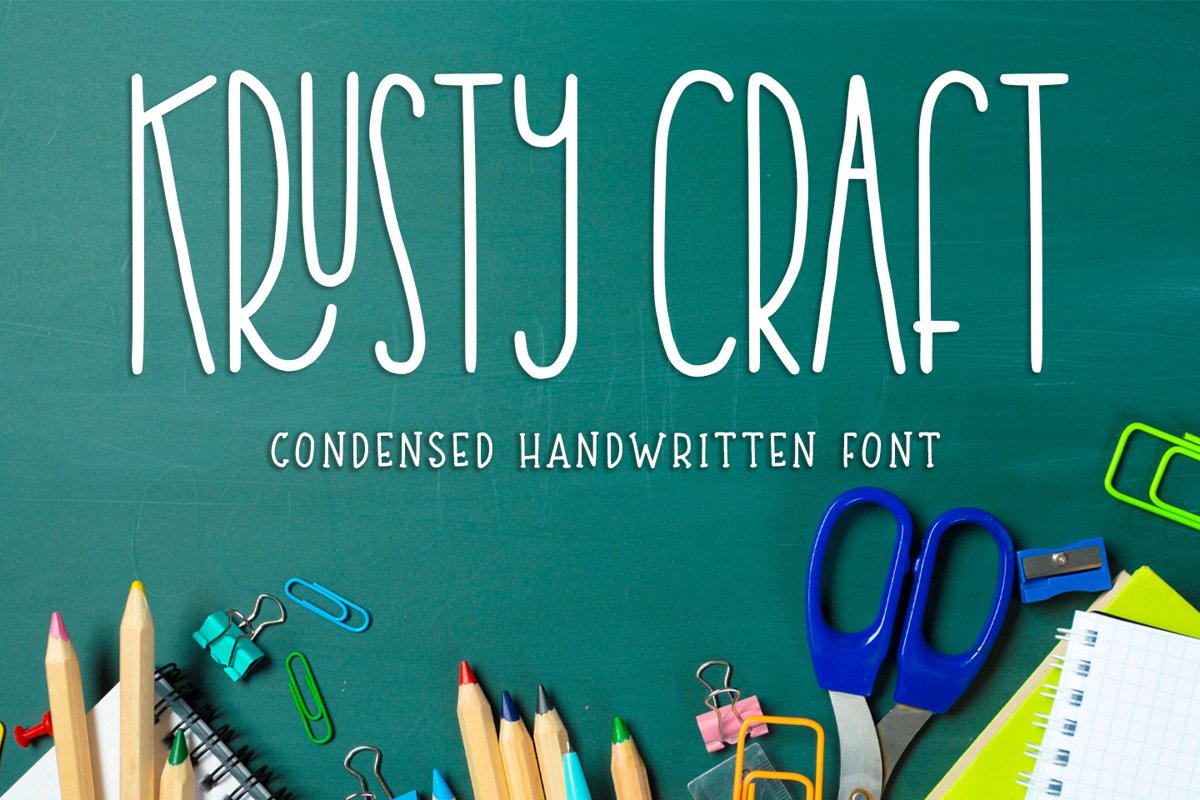
Krusty Craft - condensed handwritten -
krusty craft
introducing
Krusty Craft
- condensed handwritten font -
This font is great for branding, packaging, quotes, logo, and anything your craft project
the combination of uppercase and lowercase is great, unique and very fun
let's play with this awesome font!